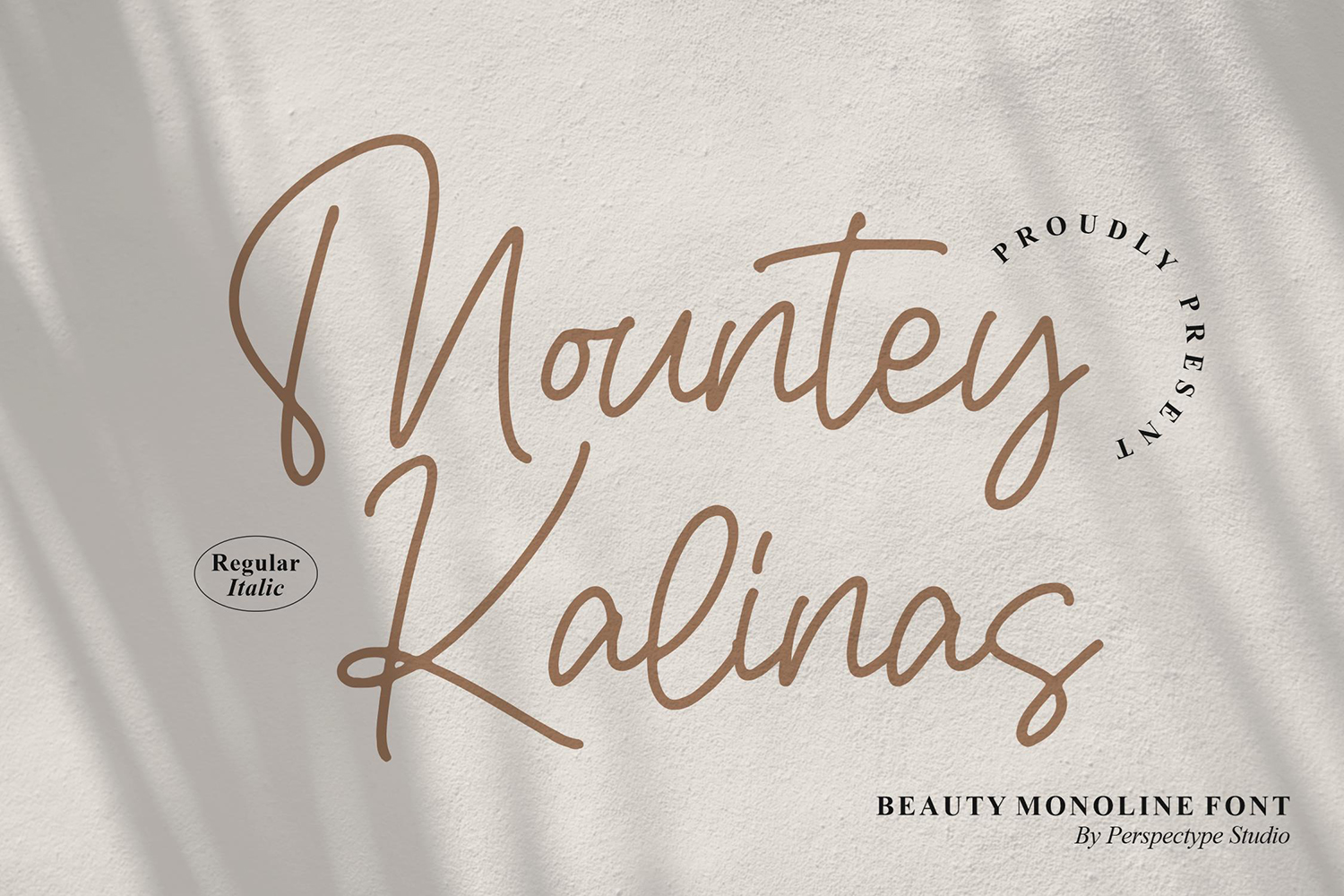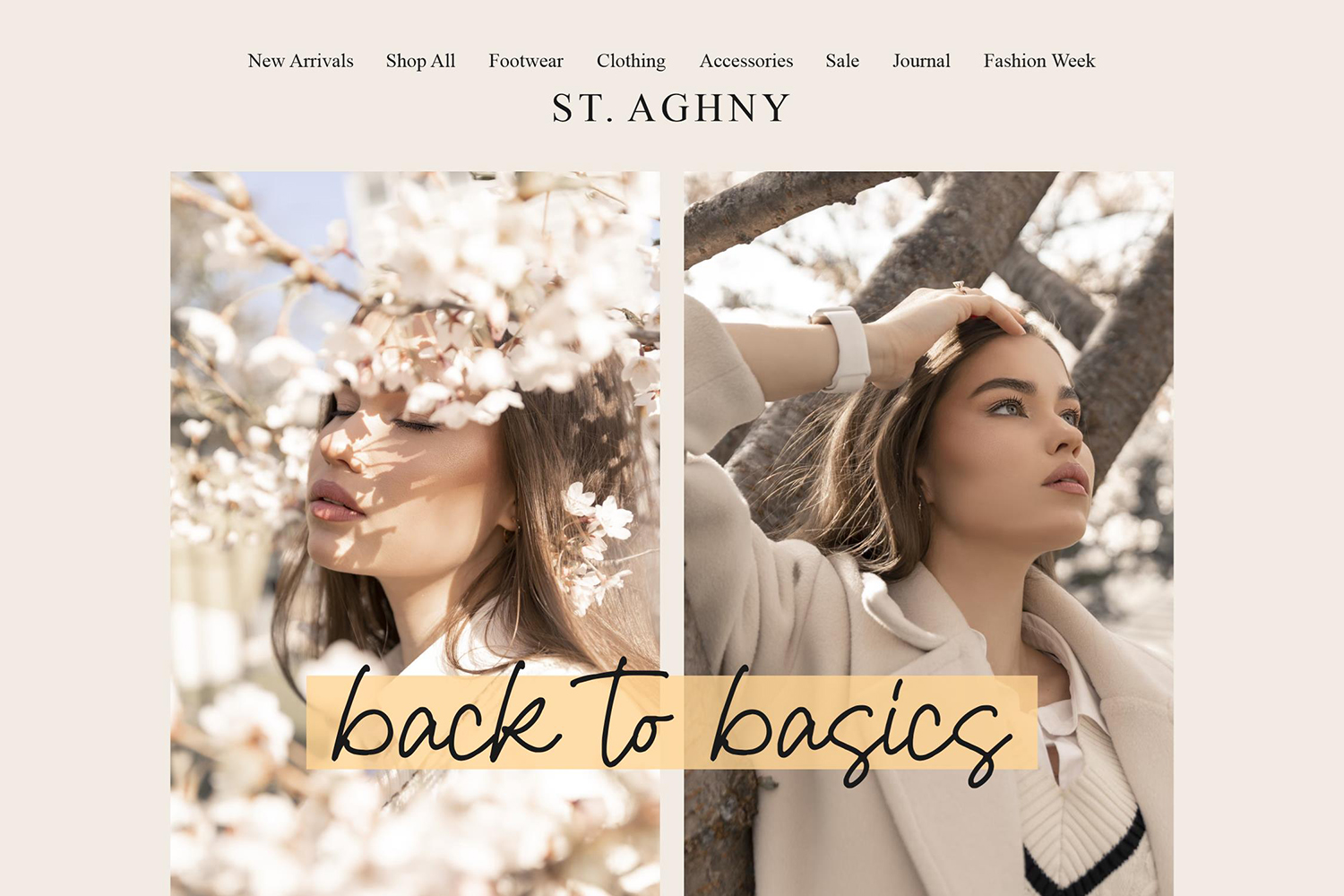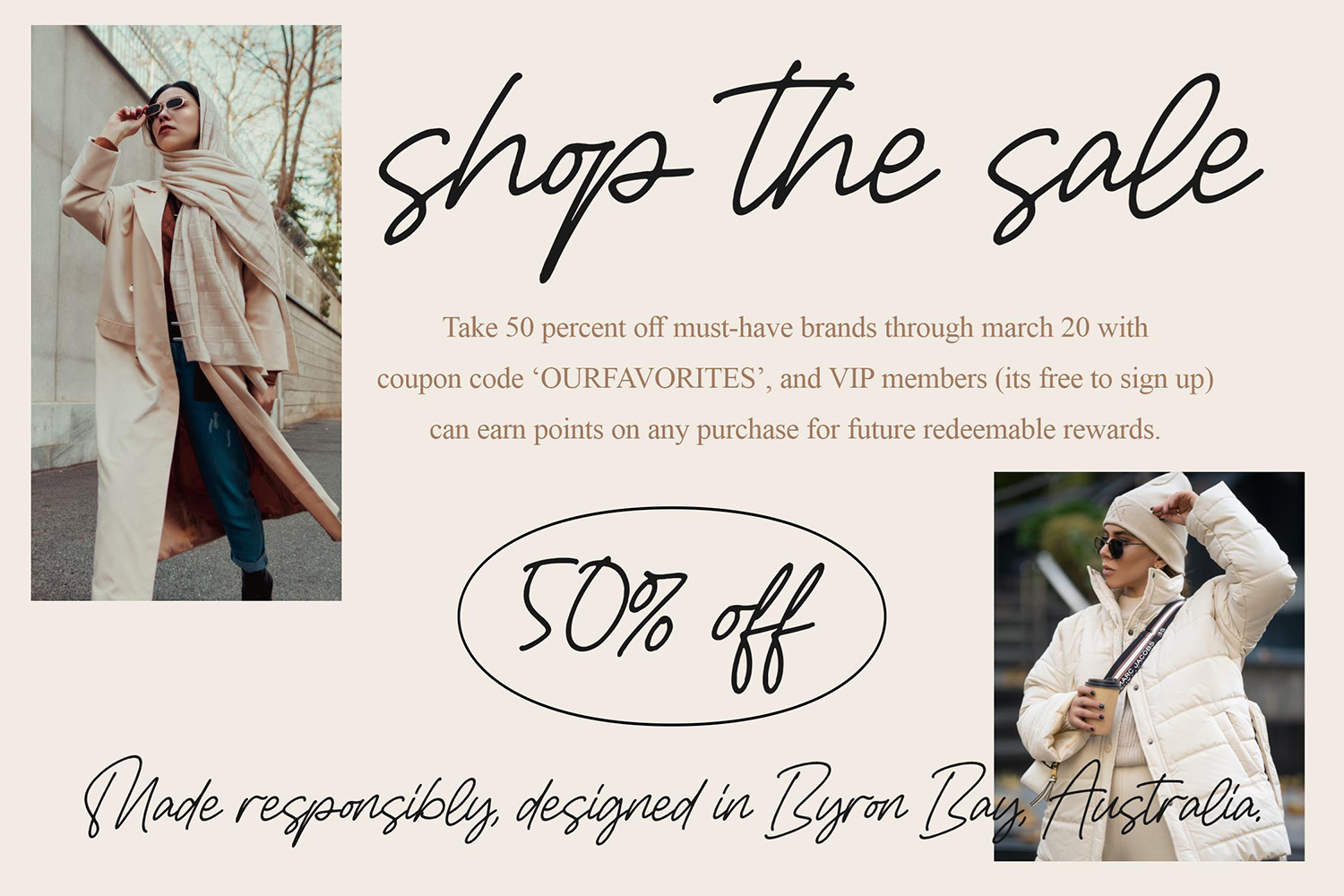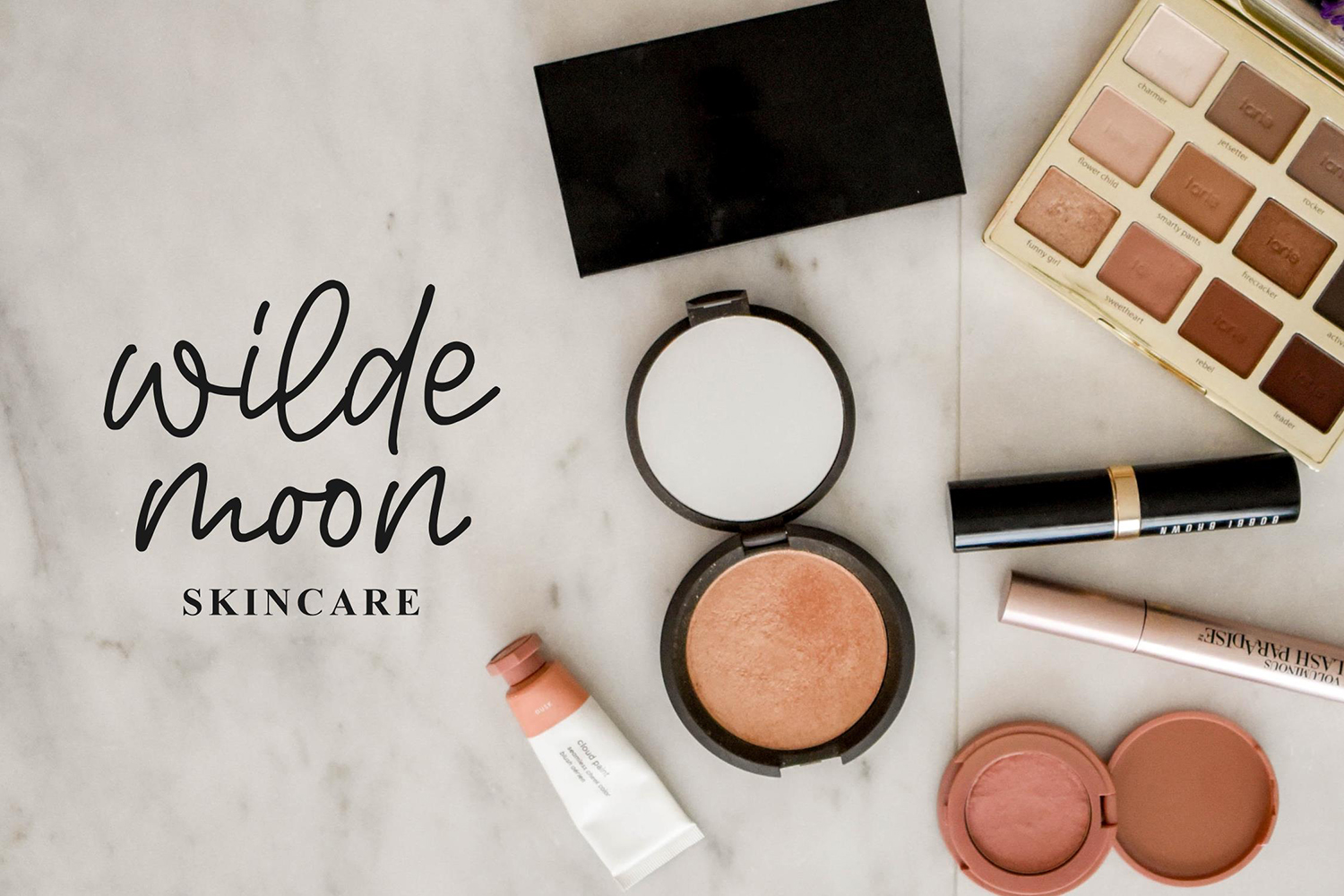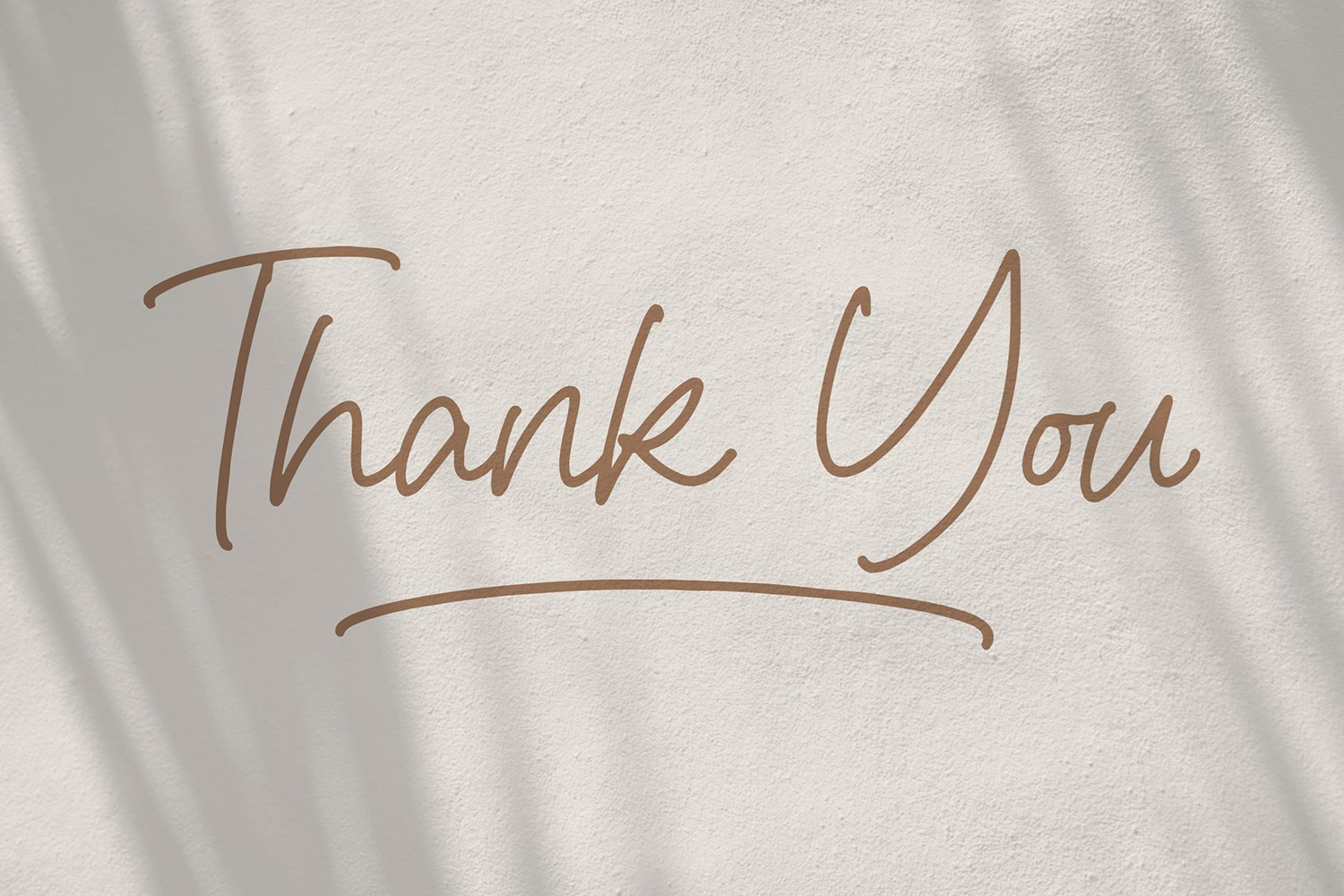
Mountey Kalinas Free Font
Introducing Mountey Kalinas Free Font, a sleek and elegant monoline font that exudes a sense of beauty and refinement. With its clean and simple lines, this font is perfect for any design project that requires a touch of simplicity and elegance. The font’s monoline style makes it perfect for creating designs that are minimalistic, modern, and timeless. Whether you’re creating a beauty brand, a fashion campaign, or a simple but elegant design, Mountey Kalinas is a perfect choice.